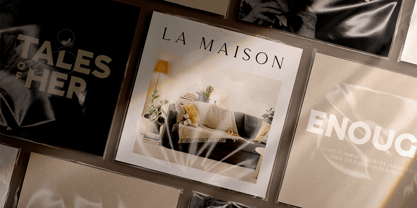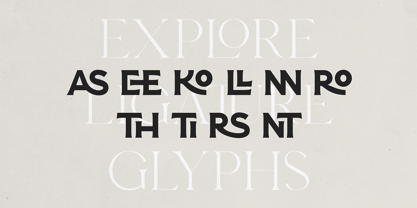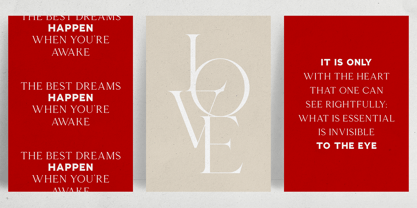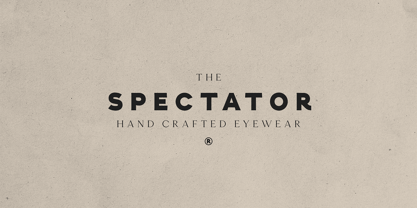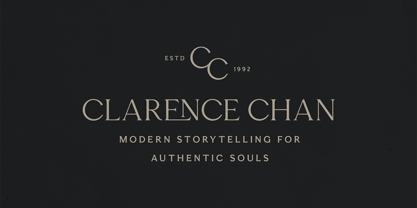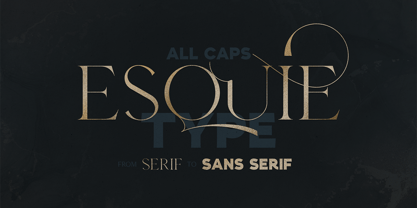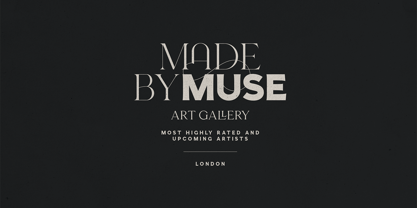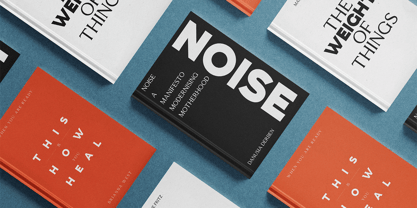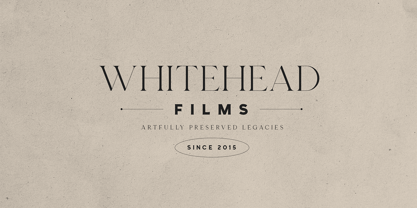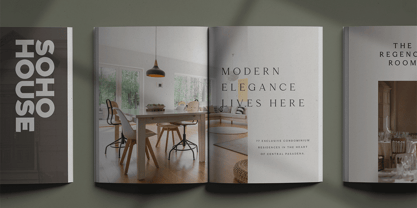
Esquie Type VF
by VP Creative Shop
The Esquie Type VF Font Family was designed by Vladimir Fedotov, Plamen Petrov and published by VP Creative Shop. Esquie Type VF contains 1 styles.
Esquie — Variable All-Caps Display Typeface From Serif to Sans, in One Fluid Motion Esquie is a refined all-caps variable display typeface that blends the grace of classic serif forms with the bold clarity of modern sans. Designed for creators who crave versatility without compromise, Esquie allows you to seamlessly glide between high-contrast elegance and minimalist precision—all within a single variable axis. Craft expressive headlines, luxurious logos, sophisticated editorial layouts, and striking book covers with a typeface that adapts to your vision. Whether you want the ornamental charm of a serif or the clean strength of a sans, Esquie delivers both through smooth typographic transformation.